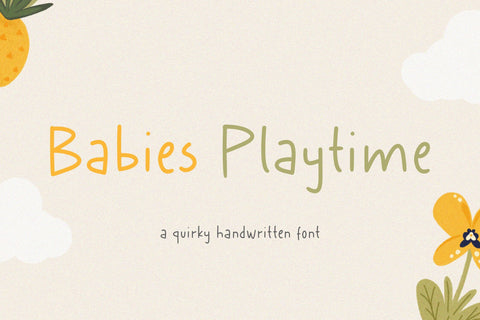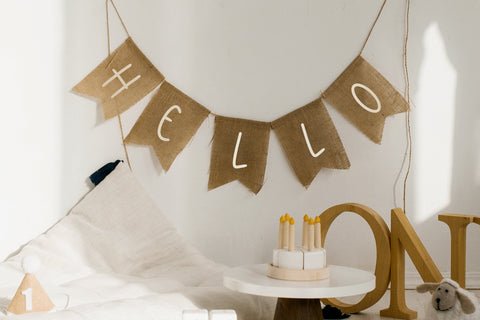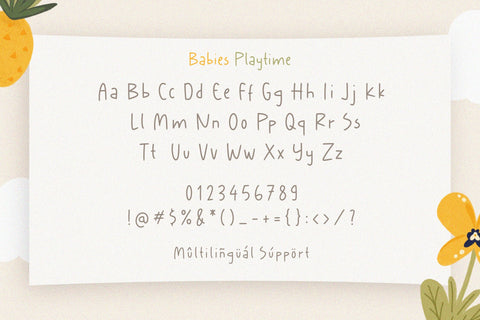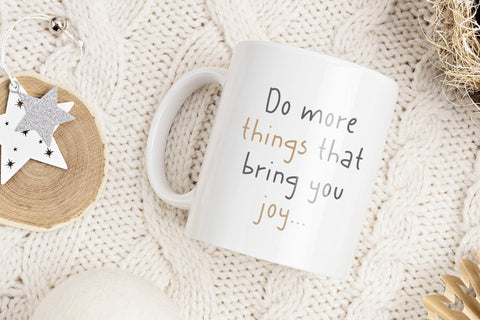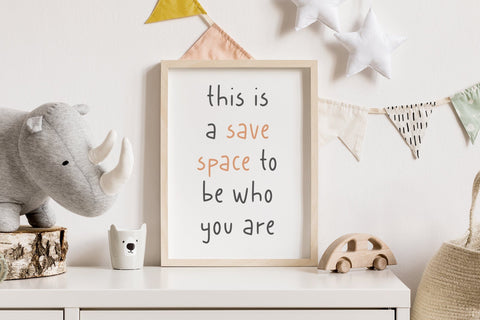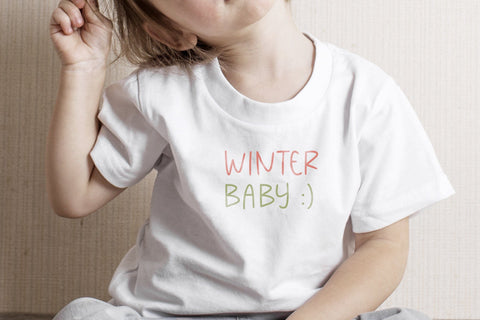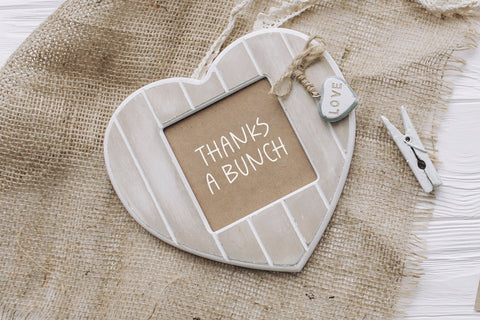
Babies Playtime- Quirky Handwritten font
Proudly Present, Babies Playtime
Babies Playtime A quirky Handwritten Font , which was created with great care and specially created for you,
Babies Playtime is perfect for product packaging, branding project, megazine, social media, wedding, or just used to express words above the background.